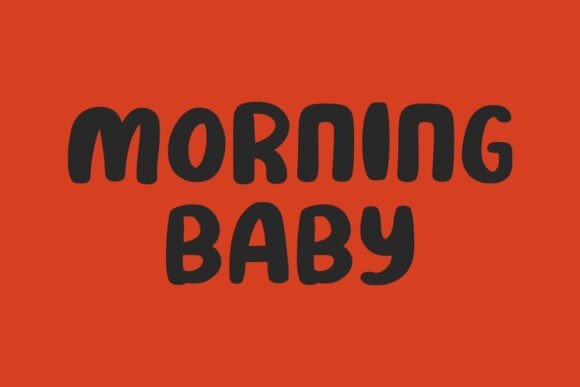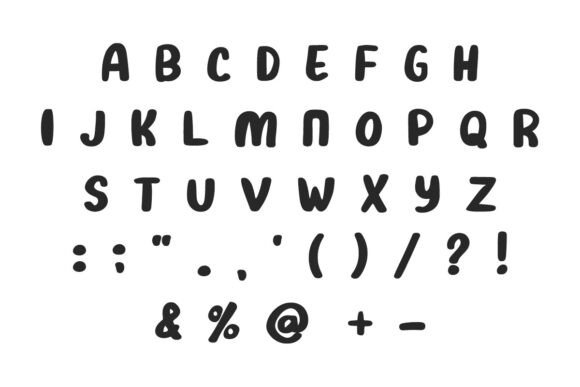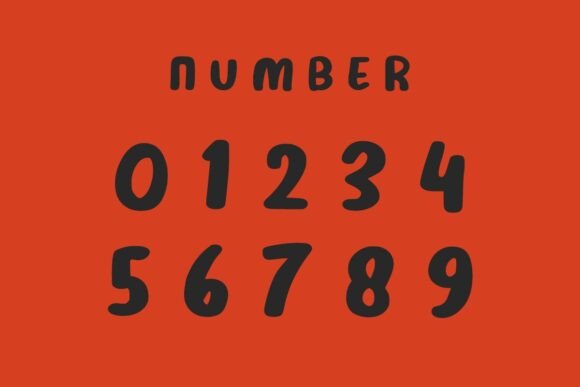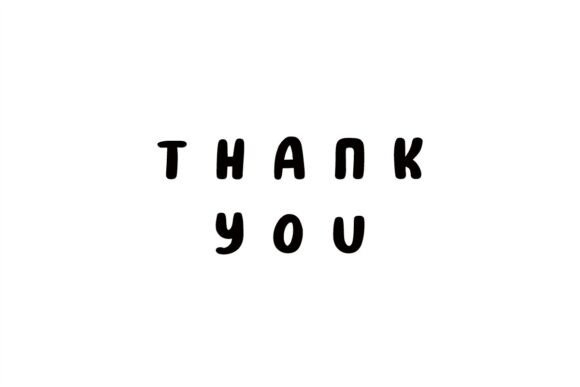
Introduction to Jacky Craft Font
Jacky Craft is a cute, simple, and friendly handwritten font.
Its informal style and casual vibe will make this font a go-to choice for each of your creations that require a relaxed touch It is suitable for any product packaging, invitation, quote, t-shirt, label, poster, logo that you wish to develop.